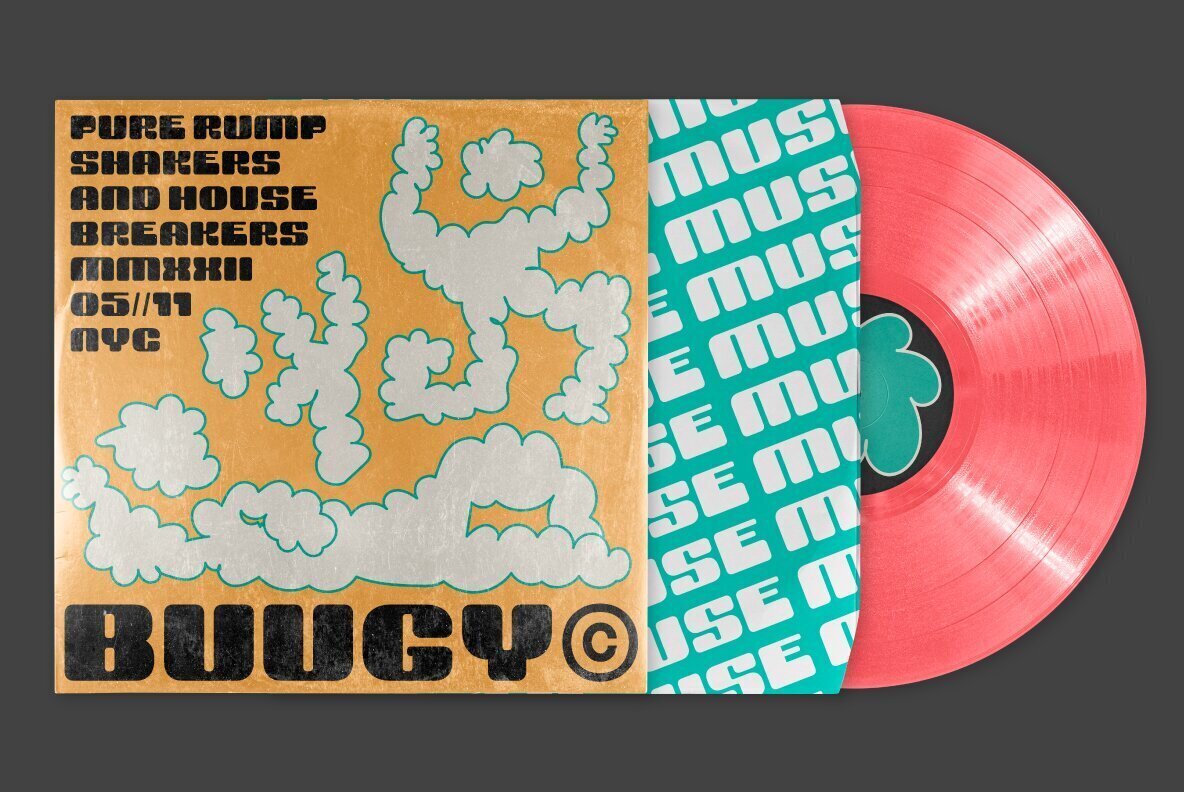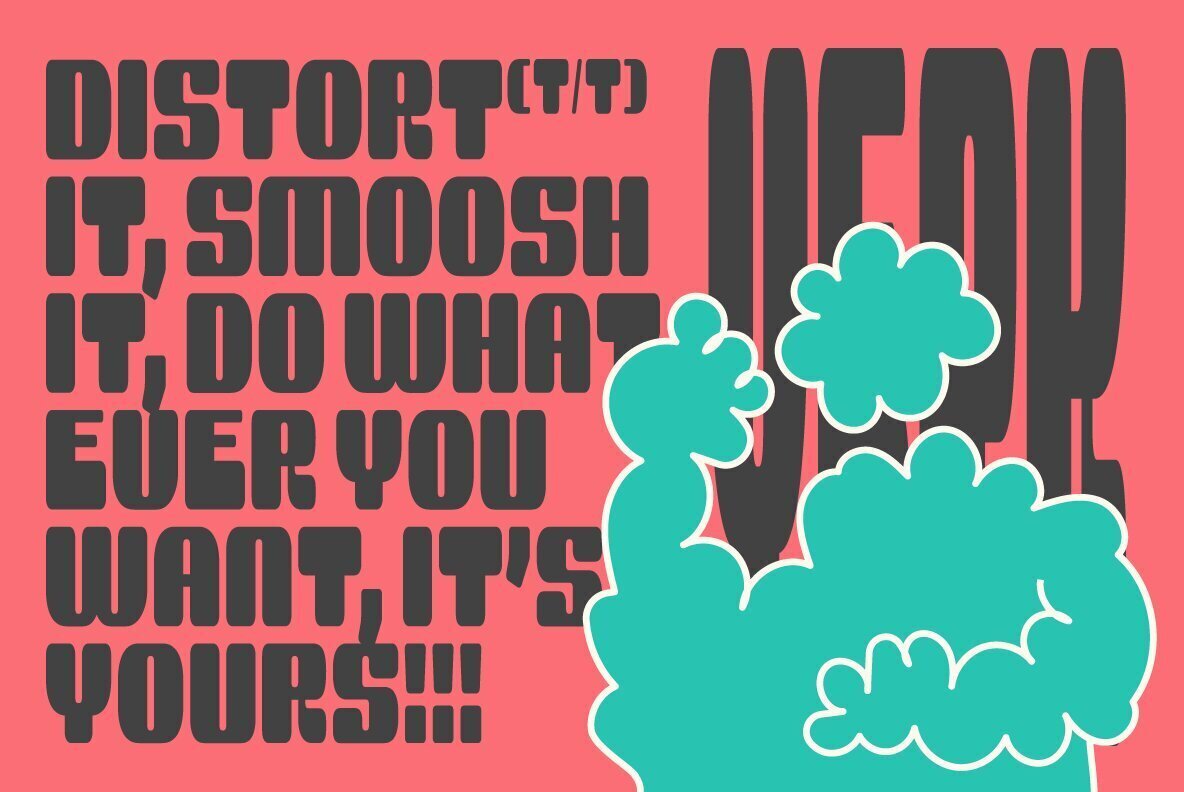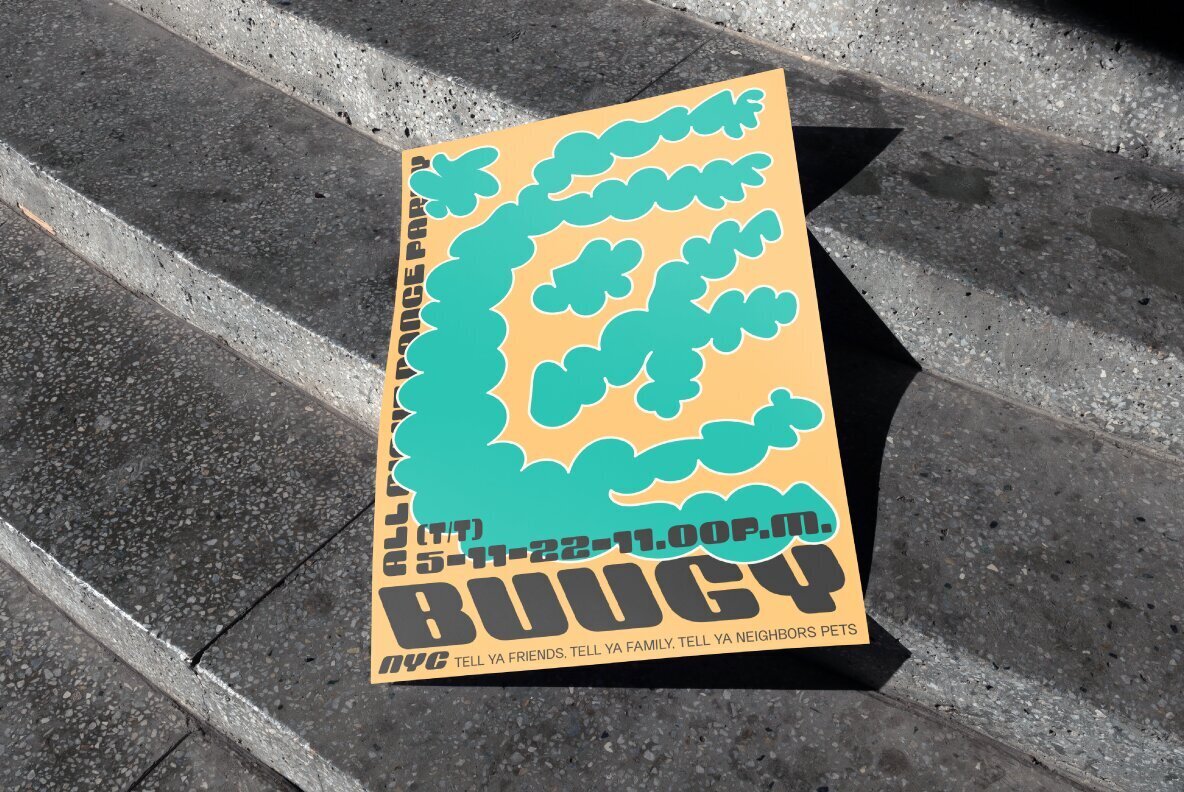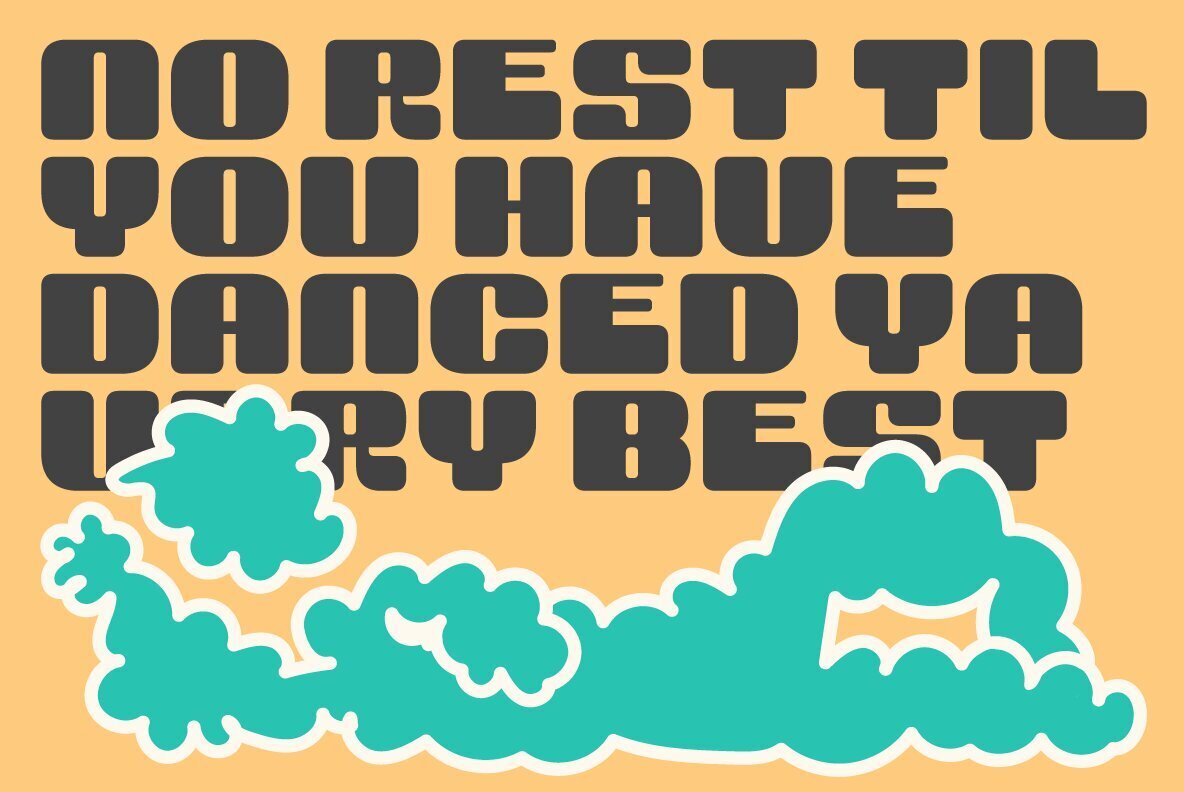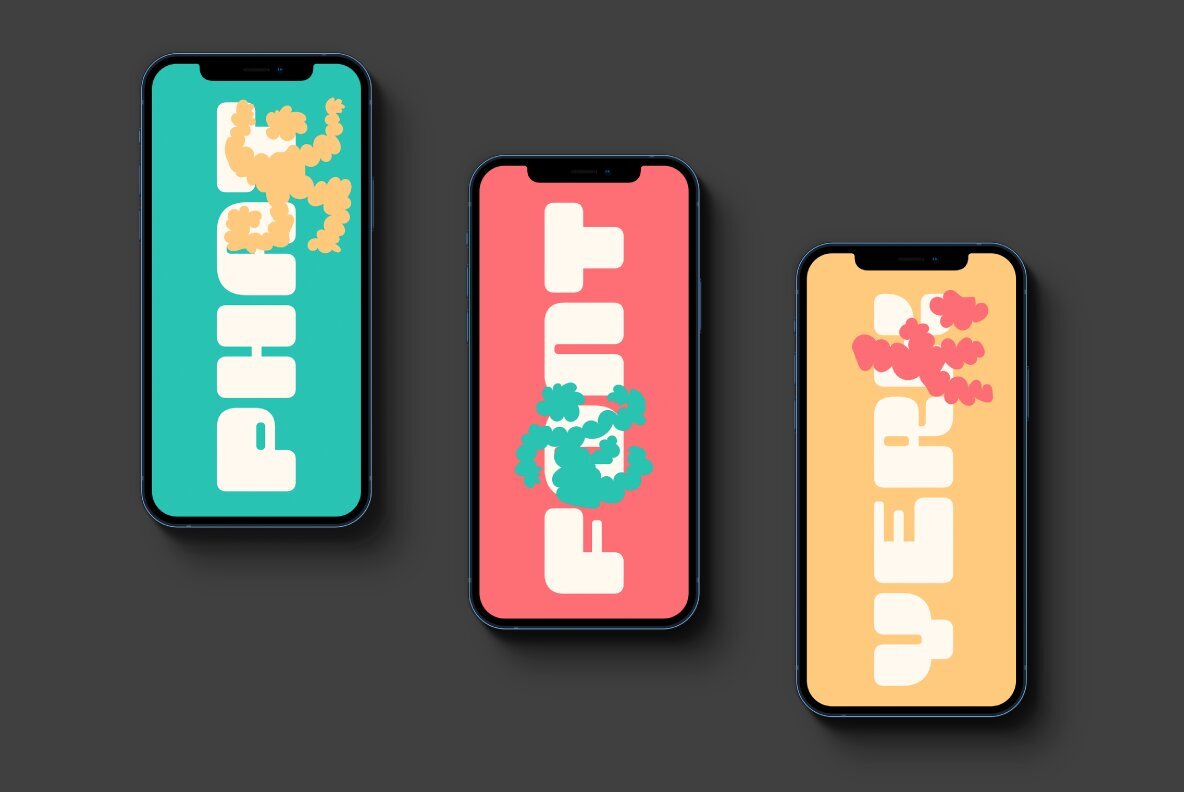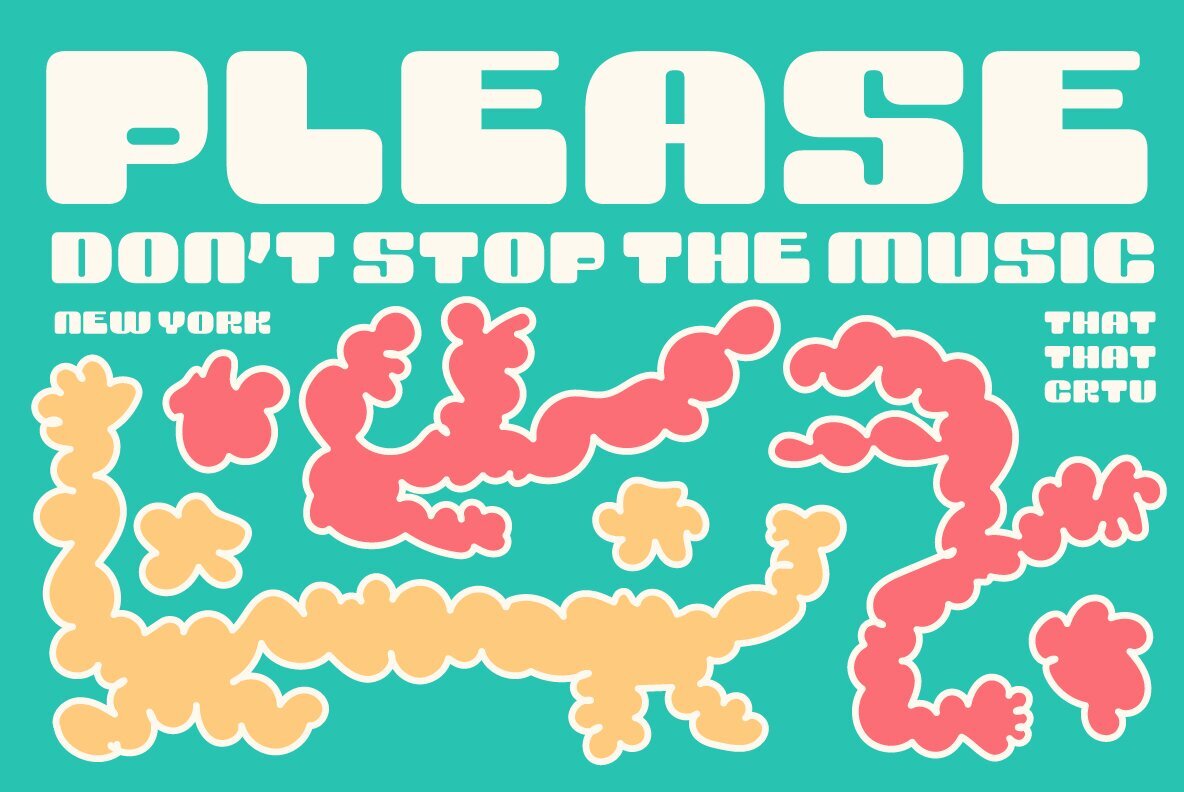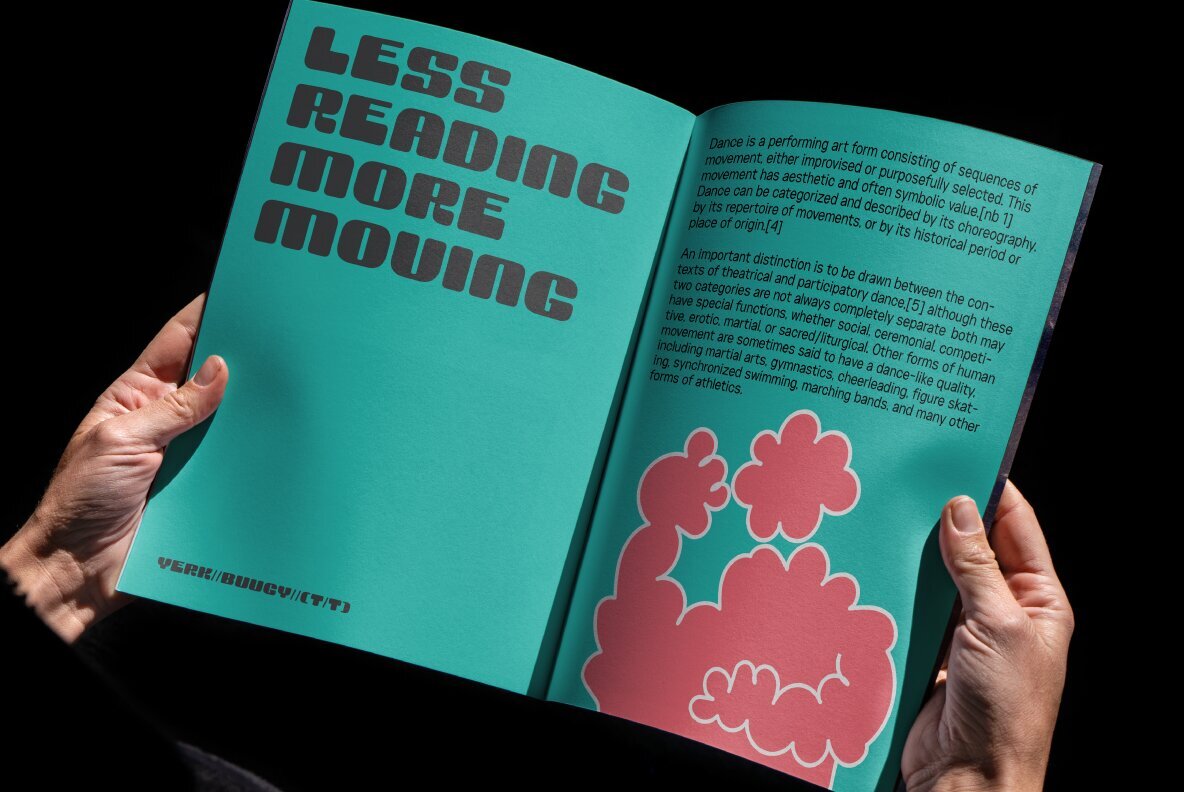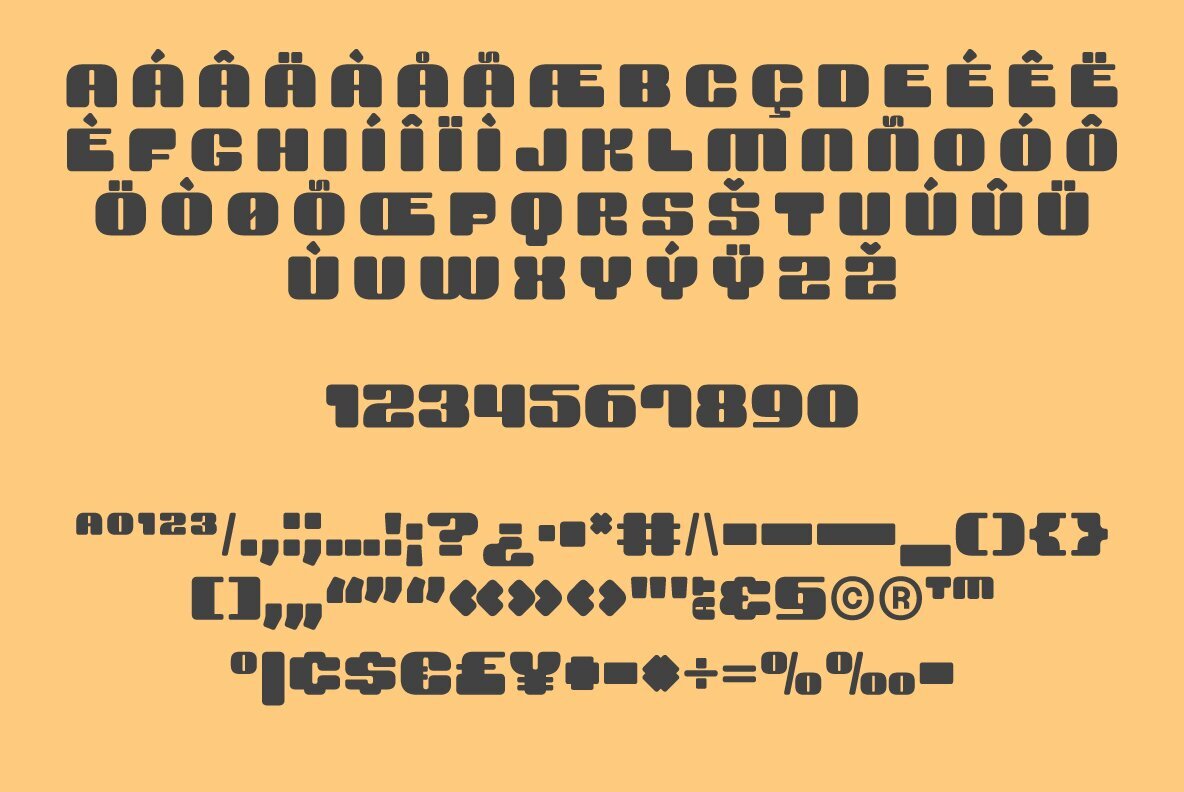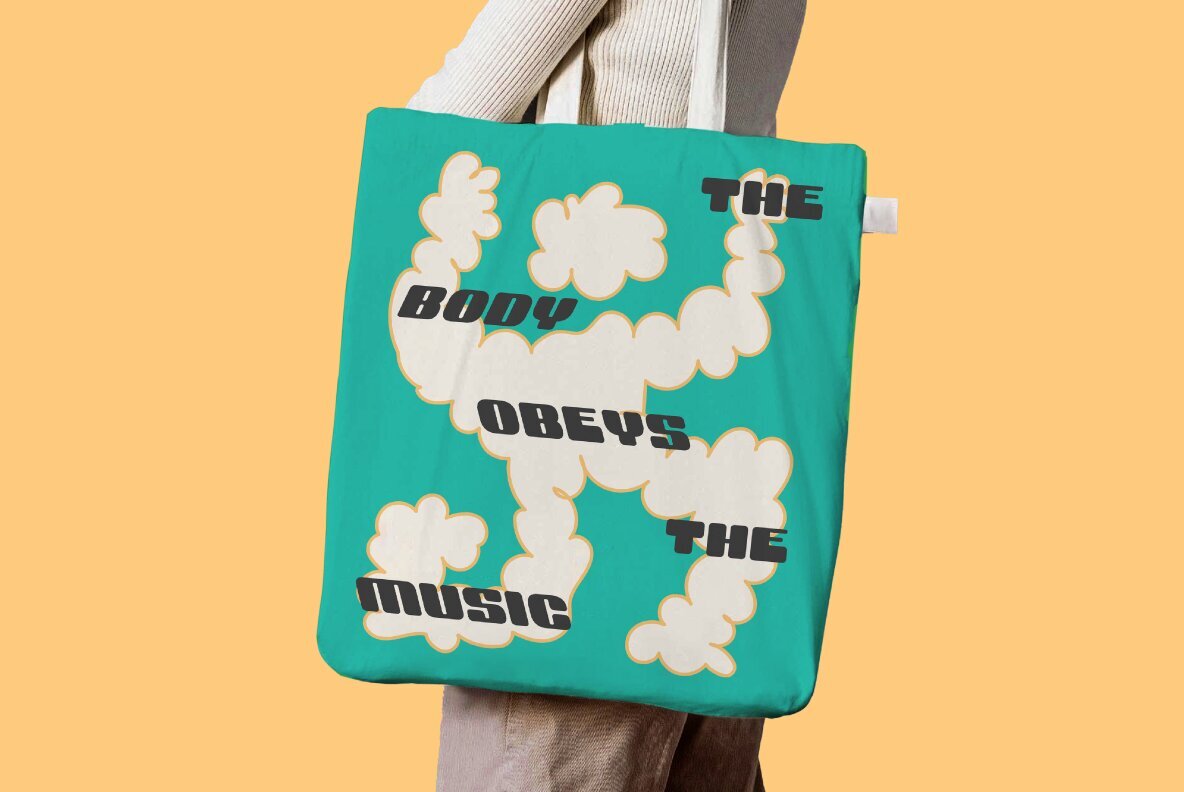
Yerk Font
Yerk is another modern Y2K inspired font. This retro font comes in 3 styles regular italic and slanted. Its bold weight, squared-off letters with slightly rounded corners make it perfect for adding big impact and a bit of personality to your design. It is perfect for logos, branding, magazines, Instagram, and whatever project you are looking for.